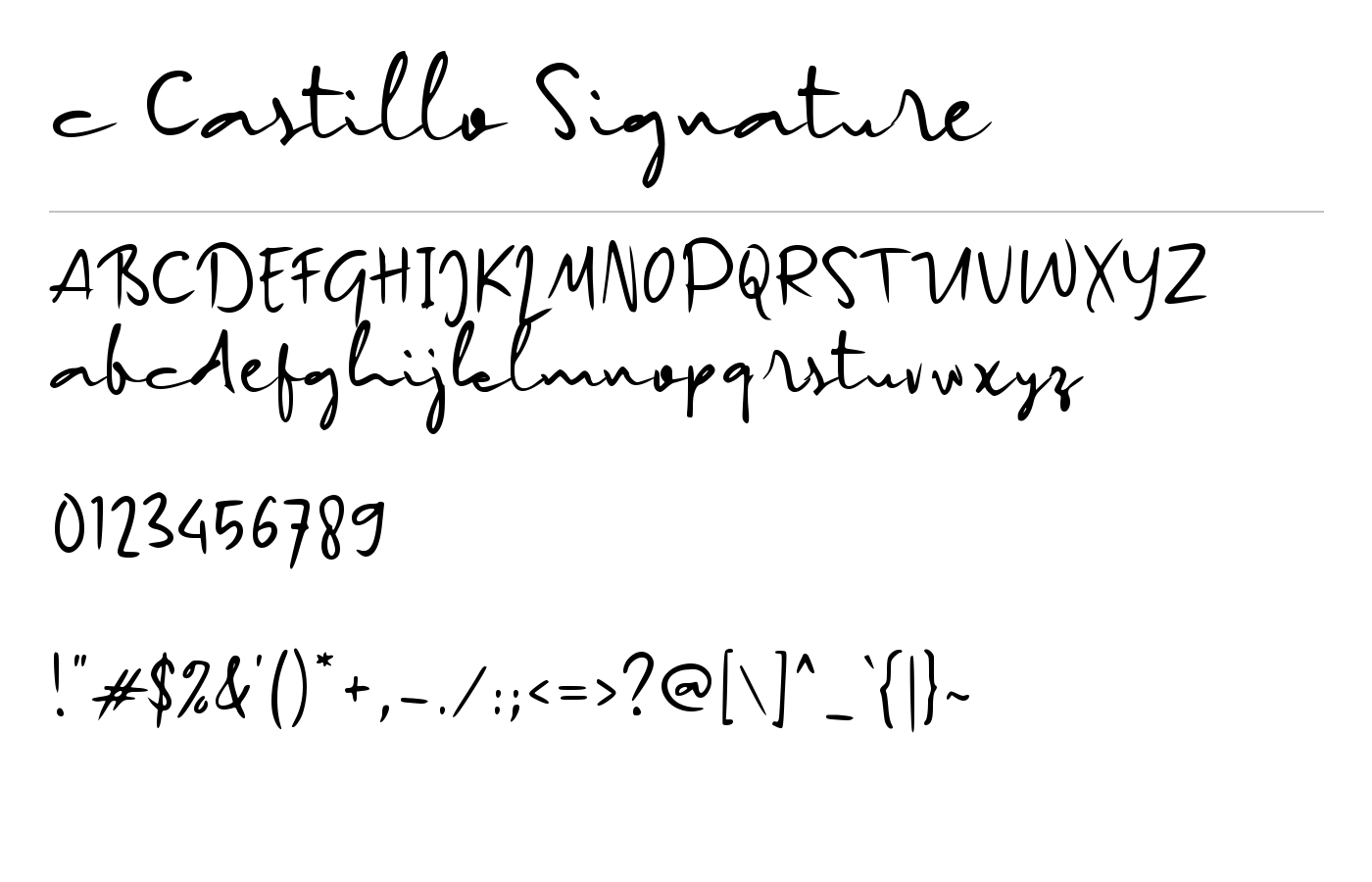
c Castillo Signature Font is a casual and elegant handwritten script that mimics natural, flowing penmanship with its tall, slender letterforms and slight irregularities. This font carries a personal, authentic feel ideal for branding, invitations, and creative projects where a warm, approachable touch is desired. Its clear legibility combined with playful strokes makes it perfect for logos, social media, and packaging that benefit from a unique and friendly character.
c Castillo Signature Font